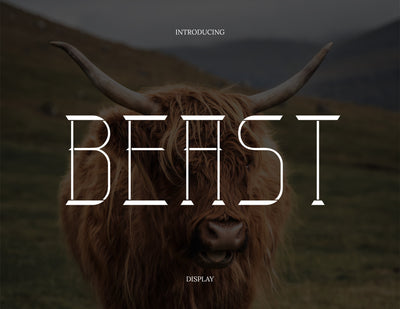
Beast Modern Display Font
Beast is the one of Display Font, it bring strong, elegant, and modern with Serif characteristic on its feet. Beast has unique detail. It form with great thickness consistency, with cut detail on some sides, the details make it look more elegant and modern. Beast is appropriate used for fashion design, logo, poster, website, grunge vibes art, etc. Beast named inspired by wild animal which has strong as same as this font itself.